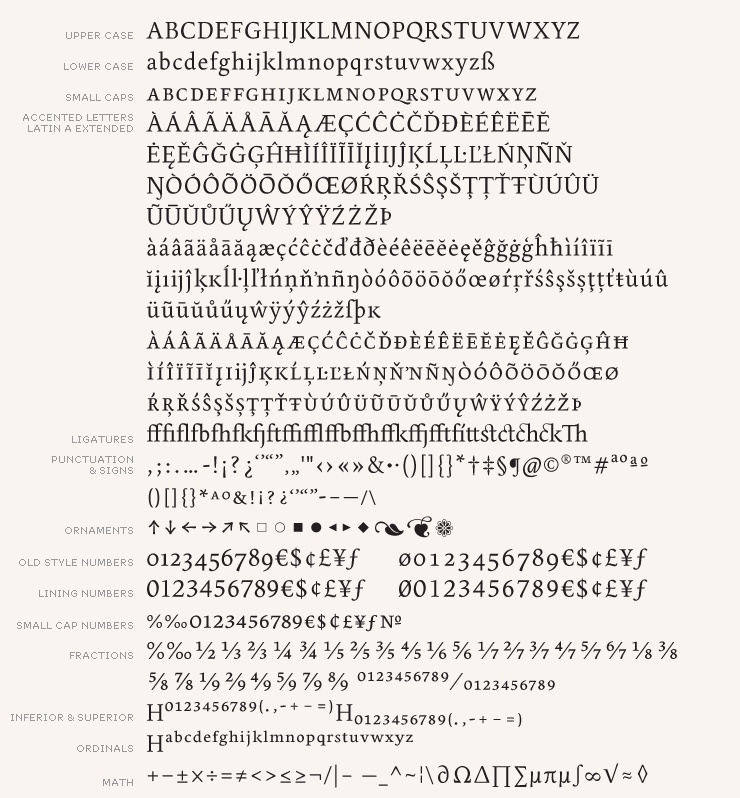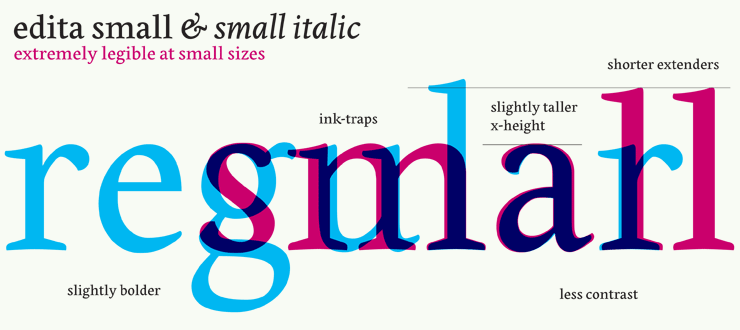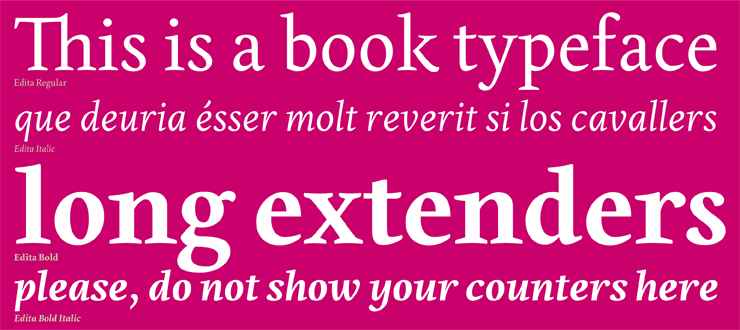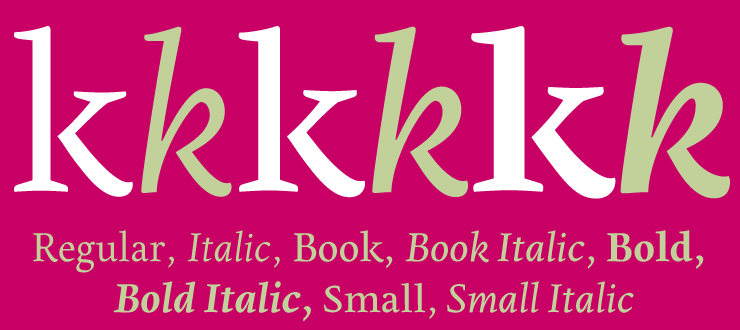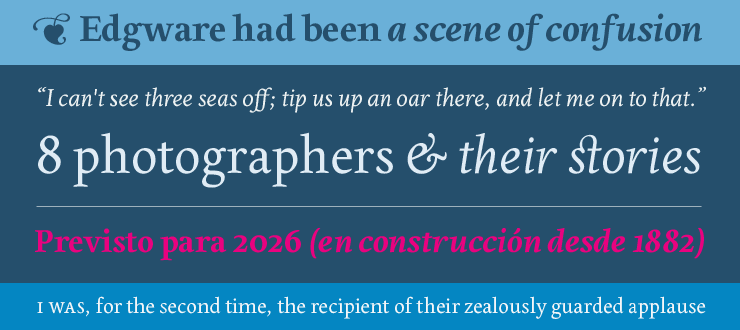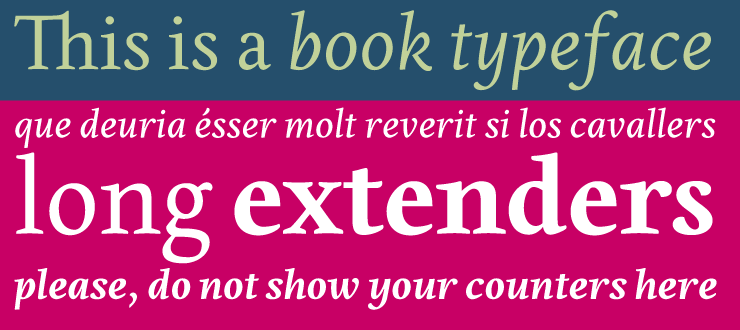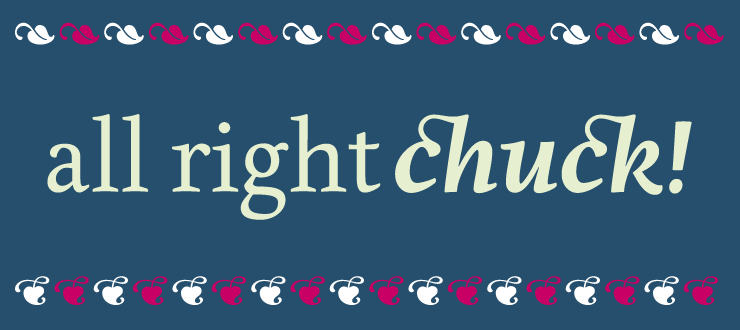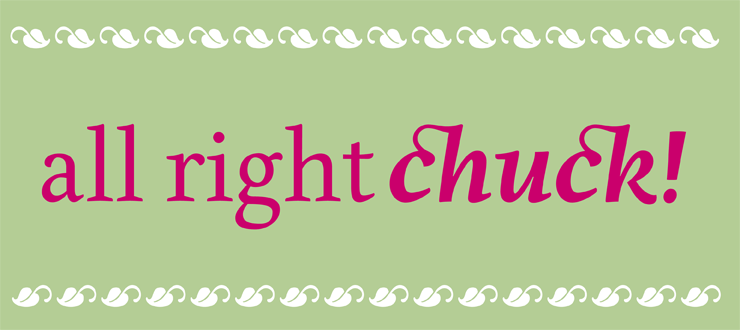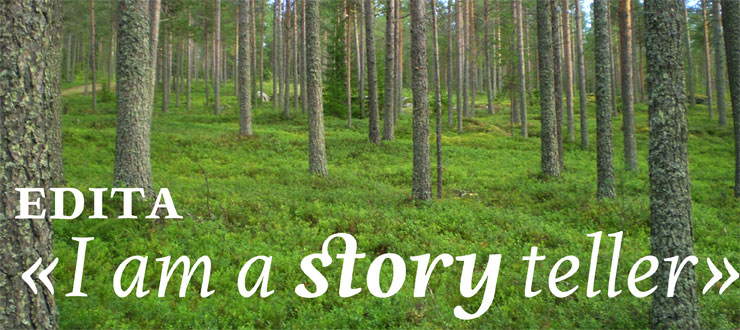
Edita is a gentle typeface, humanistic in concept yet with a contemporary feel, where softness and fluidity play a very important role. This can be seen especially in its italics, which are loosely based on handwriting.
This book typeface family is intended to be used in books where text is set together with photographs and other graphic elements. However, Edita is a general book typeface, versatile enough to be used in many other contexts, from novels to promotion material.
Edita’s large character set, covering most languages which use Latin script, and styles give the designer the possibility to work with a big typographic palette, allowing complex typesetting with several levels of information.
This is further enhanced by the two optically corrected weights Edita Small and Small Italic. They have been particularly designed for their use in very small type sizes, such as in captions and notes. They differ in having a slightly bigger x-height, heavier stems, reduced contrast, and carefully drawn ink-traps to ensure legibility at sizes as small as 5 pt. Additionally, their extenders are shorter to save space which allows text to be set with tighter leading.